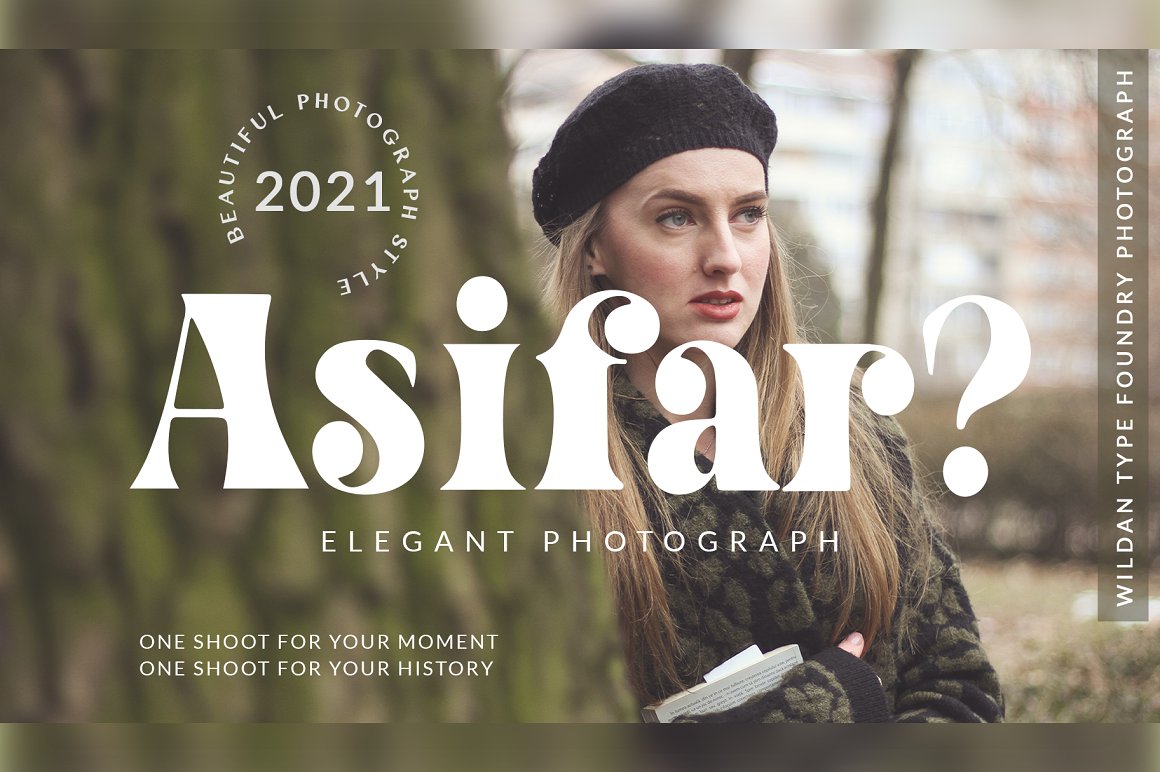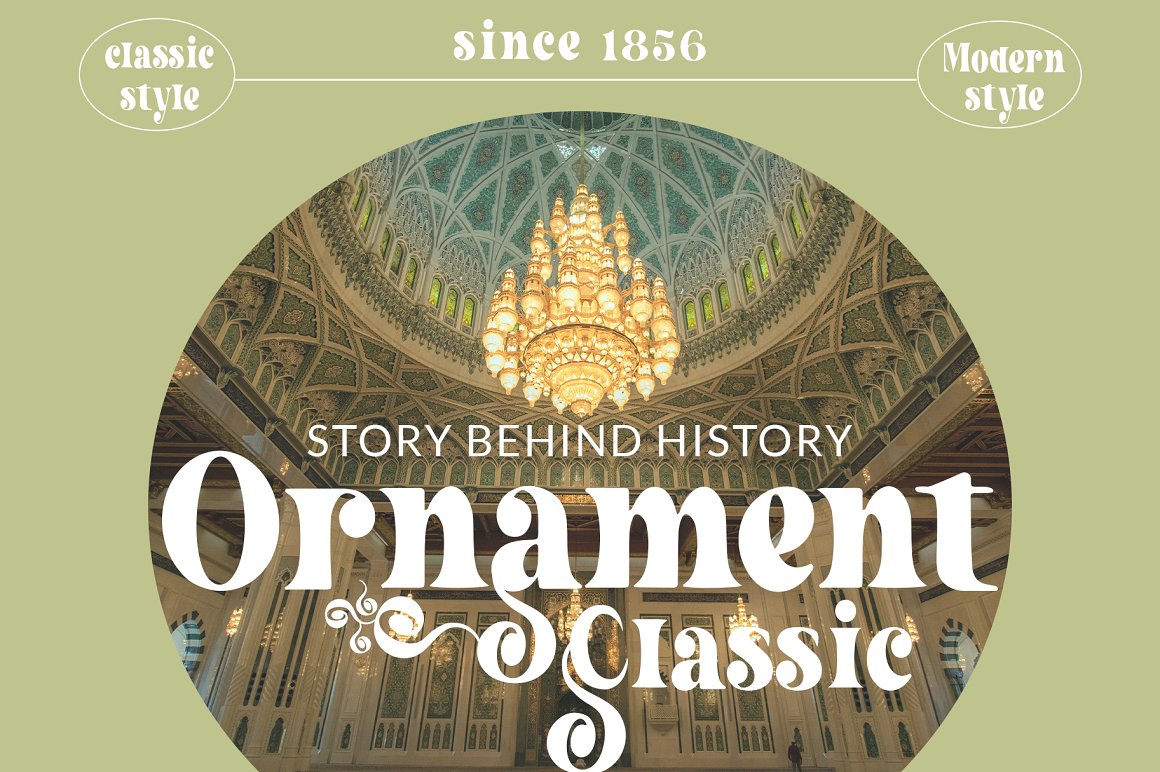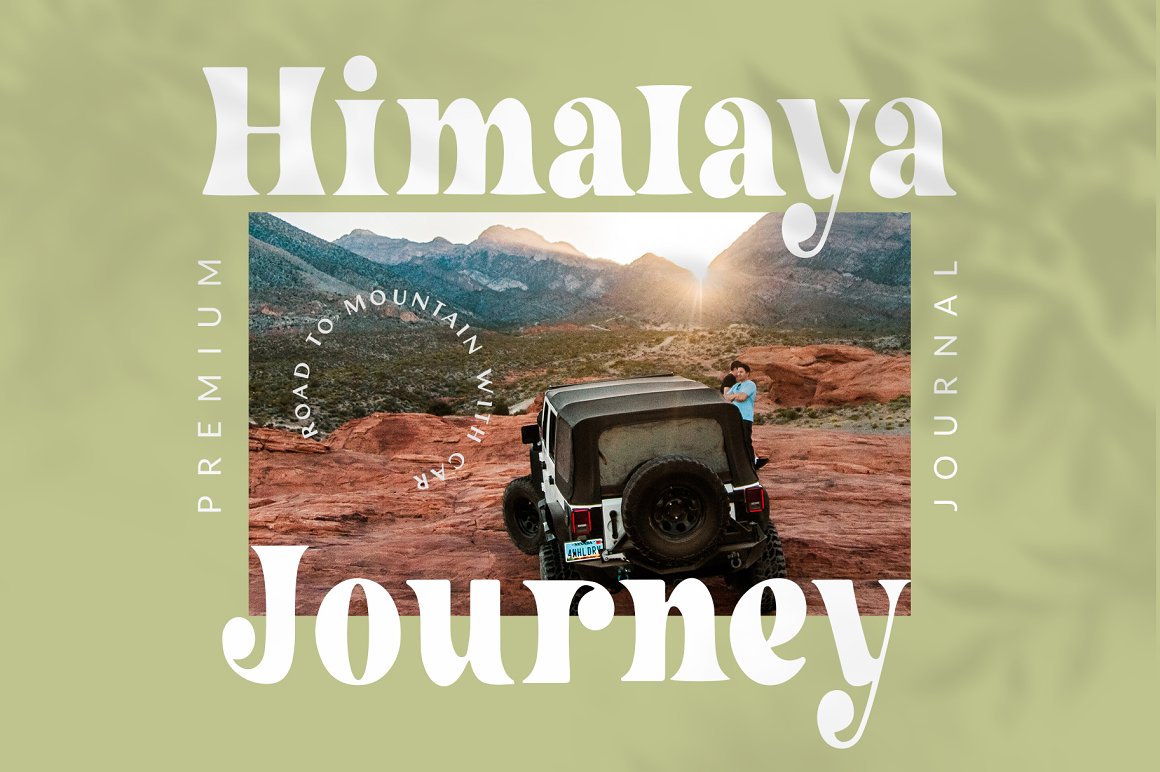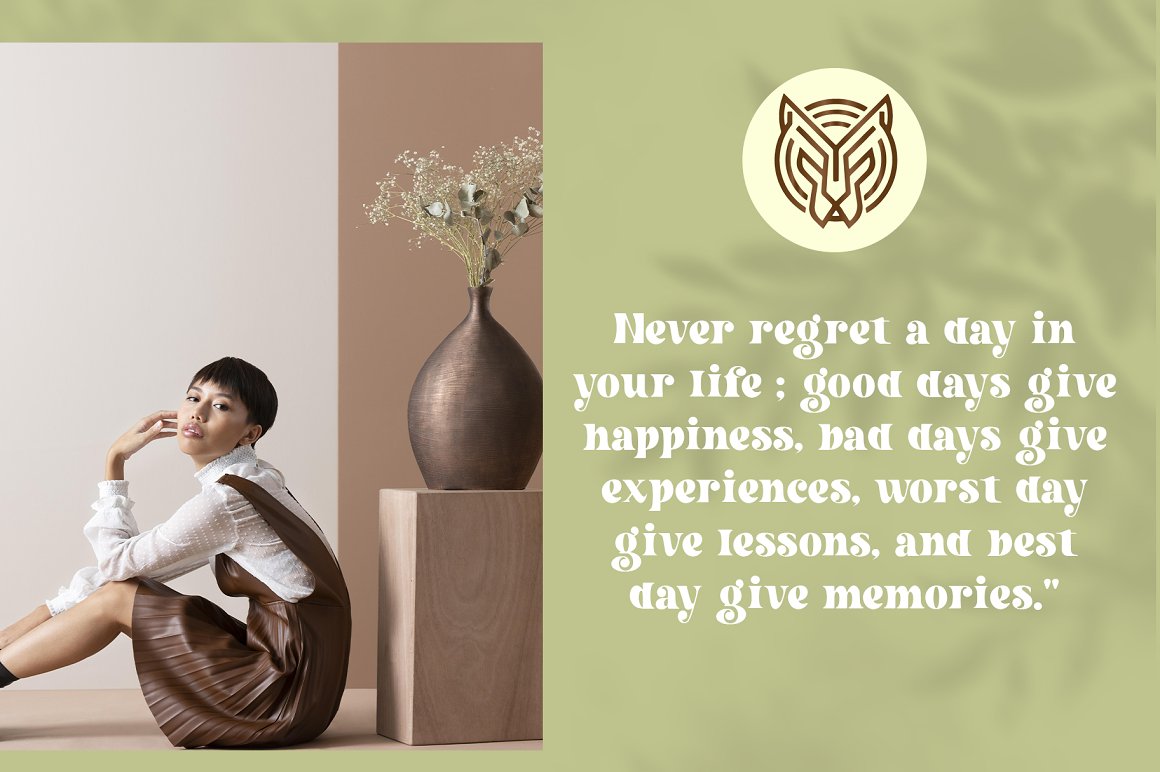
Barges Serif Font
It’s a modern, luxury, and fashionable display font. This font reads as strong, confident, and dynamic and can add tons of stylish character to your designs.